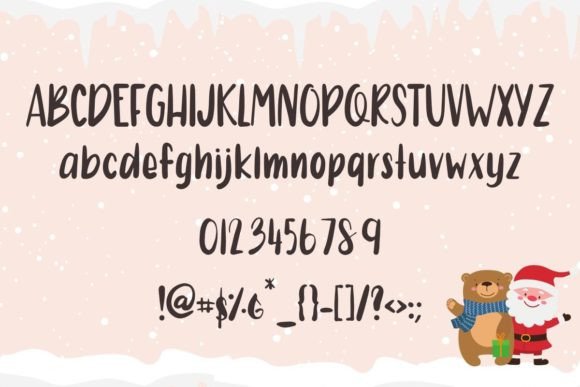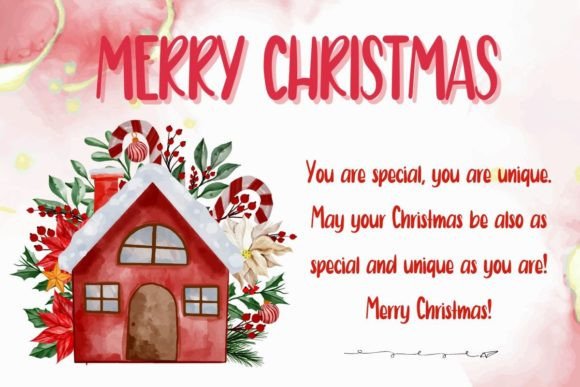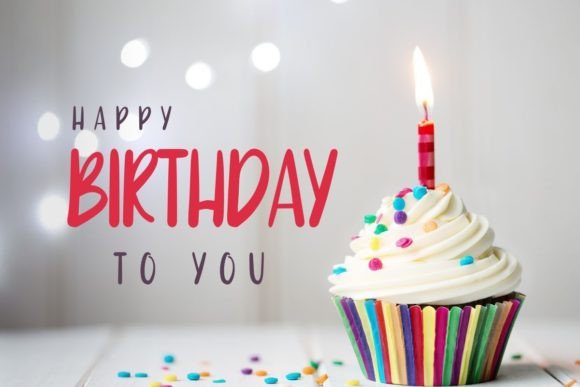
Introducing Dear Santa Font: A Fun and Quirky Handwritten Delight
Are you tired of using the same old fonts in your designs? Look no further than the Dear Santa font, a fun and slightly quirky handwritten font that’s perfect for adding a touch of personality to your projects. With its casual charm, this font is ideal for a wide range of design ideas, from holiday-themed crafts to everyday creative endeavors.
The Characteristics of Dear Santa Font
Dear Santa font is a handwritten font that exudes a sense of playfulness and whimsy. Its casual, laid-back vibe makes it perfect for designs that require a personal touch. The font features:
- Unique letterforms: Each letter in the Dear Santa font has its own distinct character, making it perfect for adding a touch of personality to your designs.
- Handwritten flair: The font’s handwritten nature gives it a warm, inviting feel that’s perfect for creating designs that feel approachable and friendly.
- Quirky charm: The Dear Santa font has a slightly quirky edge that sets it apart from more traditional fonts.
Uses for Dear Santa Font
The versatility of the Dear Santa font makes it perfect for a wide range of design projects, including:
- Holiday crafts: The Dear Santa font is perfect for creating holiday-themed crafts, such as Christmas cards, gift tags, and decorations.
- Party invitations: Add a touch of whimsy to your party invitations with the Dear Santa font.
- Social media graphics: Use the Dear Santa font to create eye-catching social media graphics that stand out from the crowd.
- Branding and packaging: The Dear Santa font can add a touch of personality to your brand’s packaging and marketing materials.
Tips for Using Dear Santa Font
To get the most out of the Dear Santa font, follow these tips:
- Use it sparingly: While the Dear Santa font is fun and playful, it can be overwhelming if used too much. Use it sparingly to add a touch of personality to your designs.
- Pair it with complementary fonts: Pair the Dear Santa font with complementary fonts to create visual interest and add depth to your designs.
- Experiment with colors: The Dear Santa font looks great in a variety of colors, so don’t be afraid to experiment and find the perfect hue for your design.
The Dear Santa font is a fun and quirky handwritten font that’s perfect for adding a touch of personality to your designs. With its casual charm and versatility, this font is ideal for a wide range of design projects, from holiday crafts to everyday creative endeavors. Whether you’re a designer, crafter, or DIY enthusiast, the Dear Santa font is sure to become a favorite in your design arsenal.